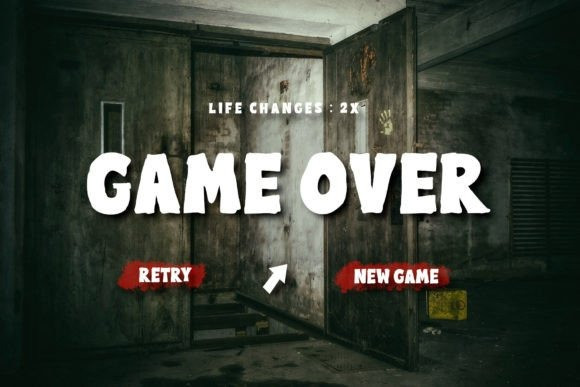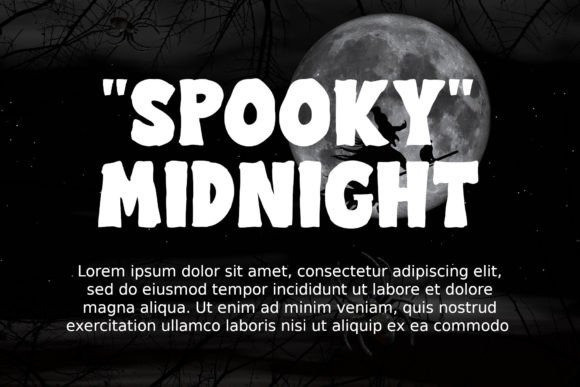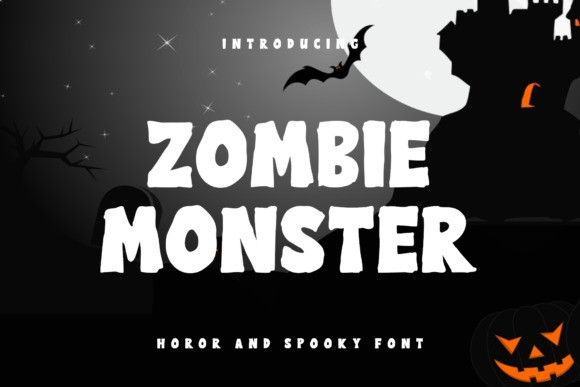
Zombie Monster Font
Zombie Monster Display Font is a display font with a horror theme.
This font is perfect for various horror-themed designs such as Halloween posters, horror games, and others.